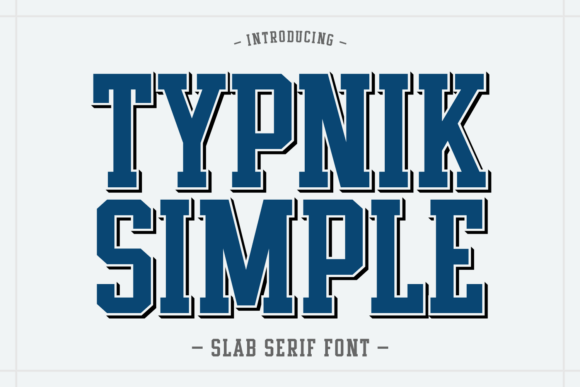
Typnik Simple Font for High-Impact Web Design
Command attention with Typnik Simple, a robust slab serif designed for impact that serves as a foundational element for modern digital interfaces. As web designers and UI creators, we constantly seek typefaces that bridge the gap between nostalgic character and contemporary usability, and this font delivers precisely that balance. Drawing inspiration from classic athletic block lettering and vintage collegiate aesthetics, this font brings a sense of authority and established trust to landing pages, hero sections, and digital brand identities. Unlike delicate serifs that struggle on low-resolution screens or overly geometric sans serifs that lack personality, Typnik Simple offers thick, sturdy strokes that maintain integrity across responsive breakpoints. For digital product creators building conversion-focused layouts, this typeface provides the visual weight necessary to guide user scanning behavior while reinforcing a bold, confident brand tone.
Typnik Simple for Hero Sections and Landing Page Headers
When implementing Typnik Simple in hero sections and landing page headers, the slab serif structure ensures immediate visual hierarchy without sacrificing readability. Fonts with this specific athletic block lineage are engineered to be read quickly from a distance, making them ideal for above-the-fold content where you have seconds to communicate value. The robust x-height and open counters prevent the letters from filling in on smaller laptop screens or when overlaid on textured background images. In high-conversion web design, the goal is to reduce cognitive load; the solid, grounded nature of this display font anchors the page layout, allowing supporting sans serif body copy to breathe. Whether you are designing a SaaS pricing page or a creative agency portfolio, using Typnik Simple for primary headlines creates a definitive focal point that directs users toward call-to-action buttons and key value propositions.
Optimizing Readability for Mobile Screens and Responsive Layouts
Digital readability remains the primary concern when deploying decorative fonts like Typnik Simple across mobile devices and responsive frameworks. Because this typeface draws from vintage collegiate aesthetics, it naturally possesses wider proportions and heavier stroke weights that resist pixelation on high-density Retina displays. However, web designers must adjust tracking and line-height specifically for screen use; tight kerning that looks intentional in print can appear cramped on a 375px mobile viewport. When using this slab serif for mobile navigation menus or section dividers, ensure adequate padding around the text to prevent touch-target overlap. The font’s inherent boldness makes it excellent for dark mode interfaces, where light text on dark backgrounds often suffers from halation; the substantial stroke width of Typnik Simple maintains contrast ratios and accessibility standards better than thinner novelty typefaces. Always test rendering across browsers to ensure the athletic block geometry remains crisp without anti-aliasing artifacts blurring the distinctive slab terminals.
Typnik Simple for E-Commerce Banners and Promotional Graphics
Online store owners and marketers utilize Typnik Simple for e-commerce banners and promotional graphics to evoke reliability and tangible quality. Slab serif fonts have long been associated with durability and craftsmanship, traits that translate directly to perceived product value in digital retail environments. When designing sale announcements, limited-time offer badges, or category headers, the blocky, assertive forms of this font cut through visual clutter more effectively than standard system fonts. This is particularly valuable for lifestyle brands, outdoor gear shops, or artisanal marketplaces where the brand identity leans into heritage or rugged authenticity. The font performs exceptionally well in horizontal banner formats, filling negative space efficiently while maintaining legibility at various aspect ratios. By anchoring promotional visuals with Typnik Simple, designers create a consistent visual language that signals importance and urgency without resorting to aggressive colors or chaotic layouts.
Font Pairing Strategies for Digital Brand Identity Systems
Establishing a cohesive digital brand identity requires strategic font pairing that allows Typnik Simple to shine as a display face while ensuring functional body text. As a dominant slab serif, it demands a supporting typeface that offers contrast rather than competition; pairing it with a clean, neutral sans serif like Inter, Roboto, or DM Sans creates a harmonious balance between vintage character and modern utility. Avoid combining this athletic block font with other heavy serifs or condensed display faces, as this creates visual tension and muddies the information hierarchy. For editorial web design or long-form content sites, reserve Typnik Simple for pull quotes, chapter titles, and sidebar highlights, letting a highly readable serif or sans serif handle paragraph text. This approach leverages the font’s personality for branding moments while preserving the reading experience. Additionally, consider how the font interacts with your color palette; its strong geometric forms pair well with muted, earthy tones for heritage brands or high-contrast monochrome schemes for tech-forward portfolios.
Typnik Simple for Course Sales Pages and Coaching Websites
Educators and coaches leverage Typnik Simple for course sales pages and coaching websites to project confidence and institutional credibility. The vintage collegiate inspiration embedded in this slab serif subtly communicates academic rigor and structured learning, which helps build trust with prospective students browsing digital products. In conversion-focused educational layouts, headings set in this font act as signposts that organize complex curriculum information into digestible chunks. The psychological association with athletics and academia suggests discipline, achievement, and proven results—key emotional triggers for selling online courses or mentorship programs. Furthermore, the font’s robust construction ensures that testimonial highlights and guarantee badges stand out against white space or photographic backgrounds. When designing these specific web experiences, use Typnik Simple to frame success metrics and module titles, reinforcing the promise of transformation through typographic stability.